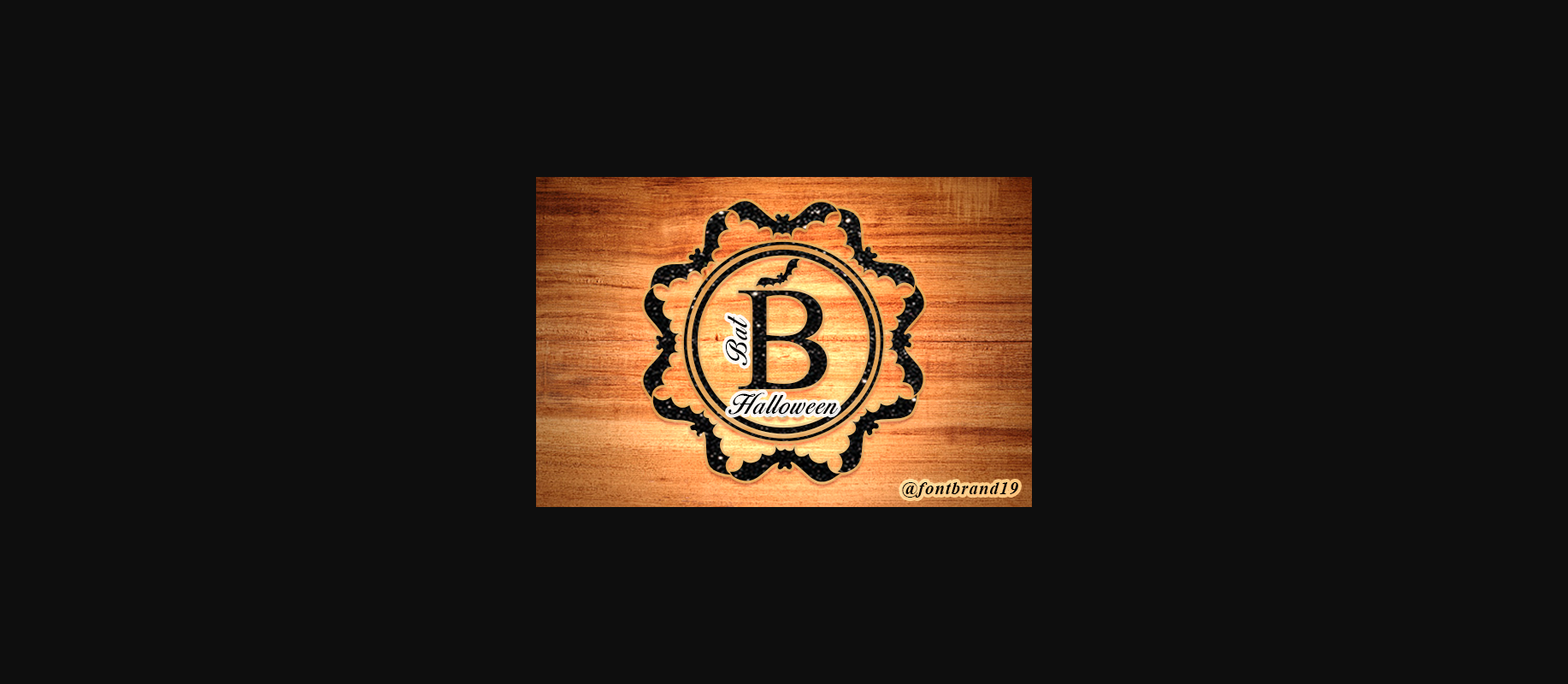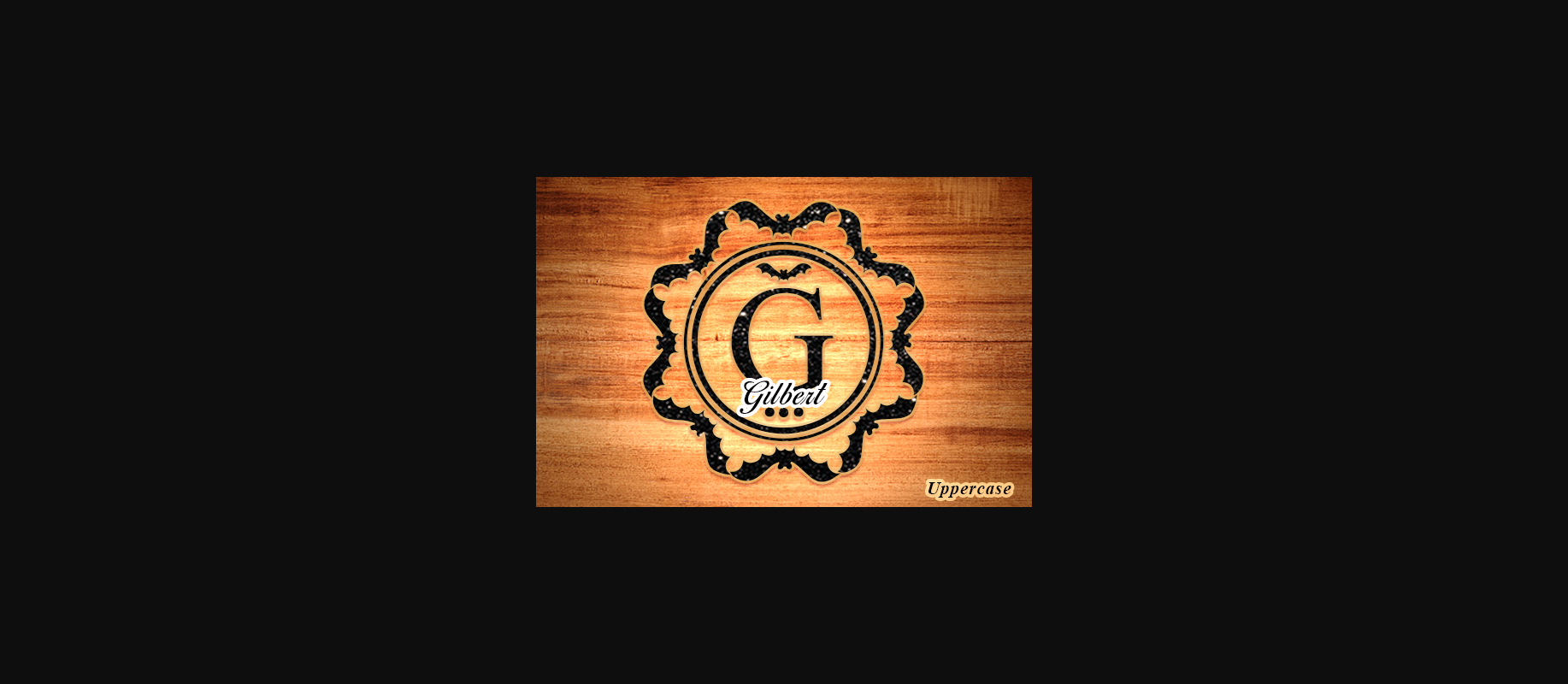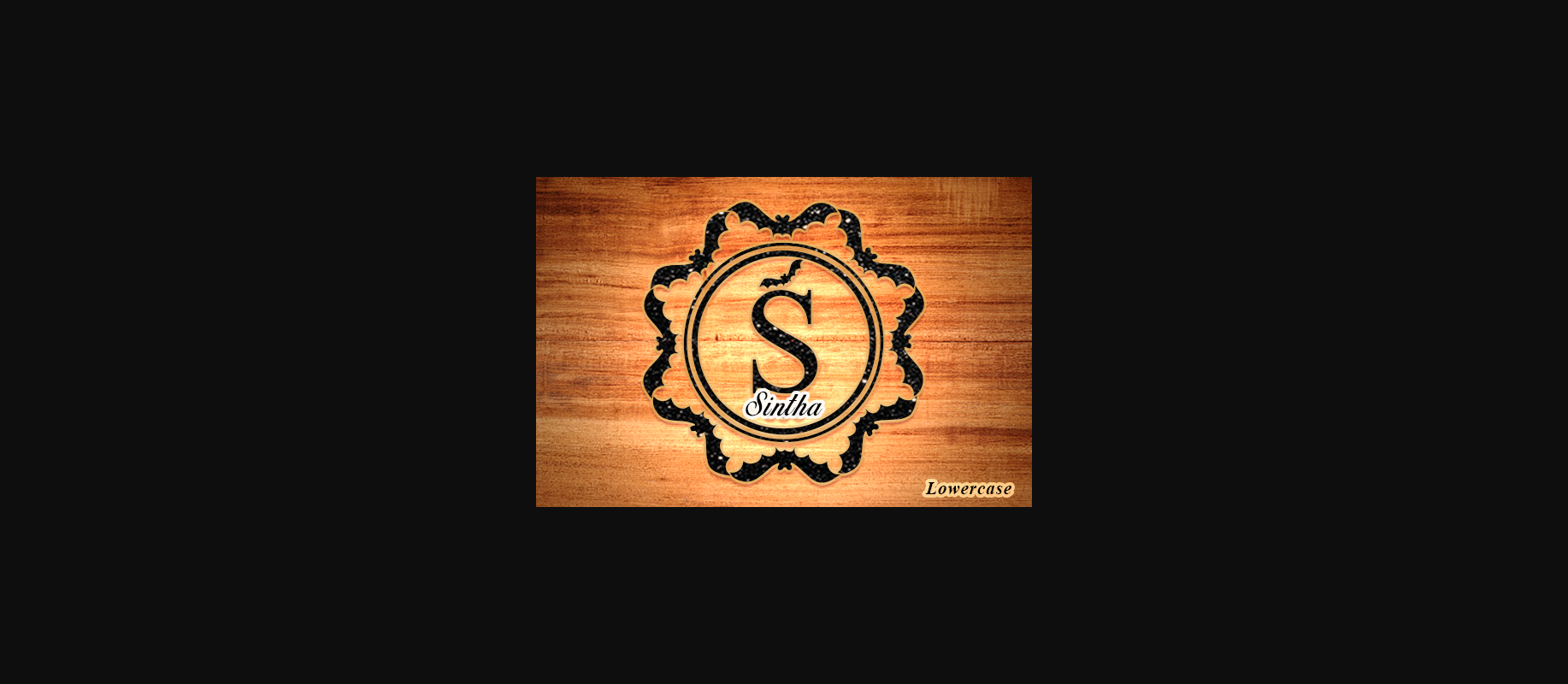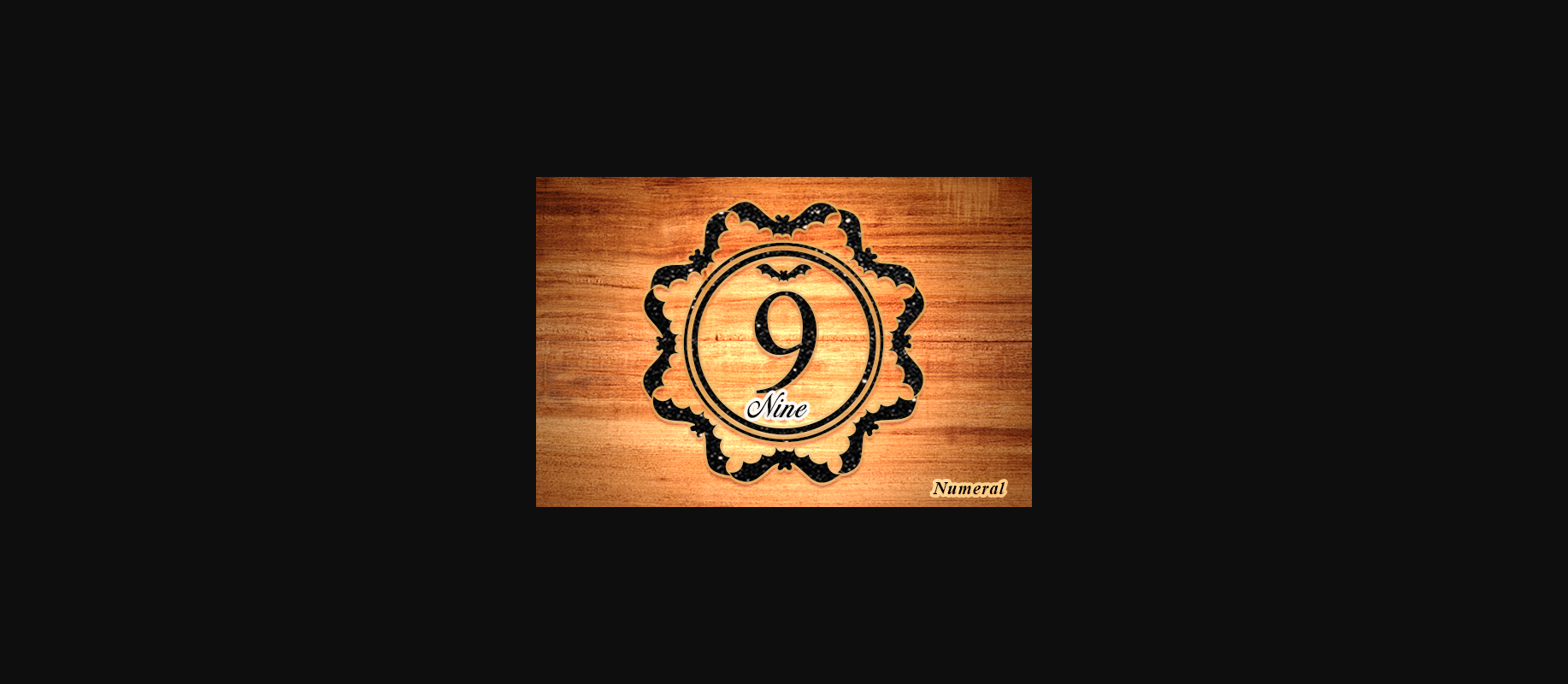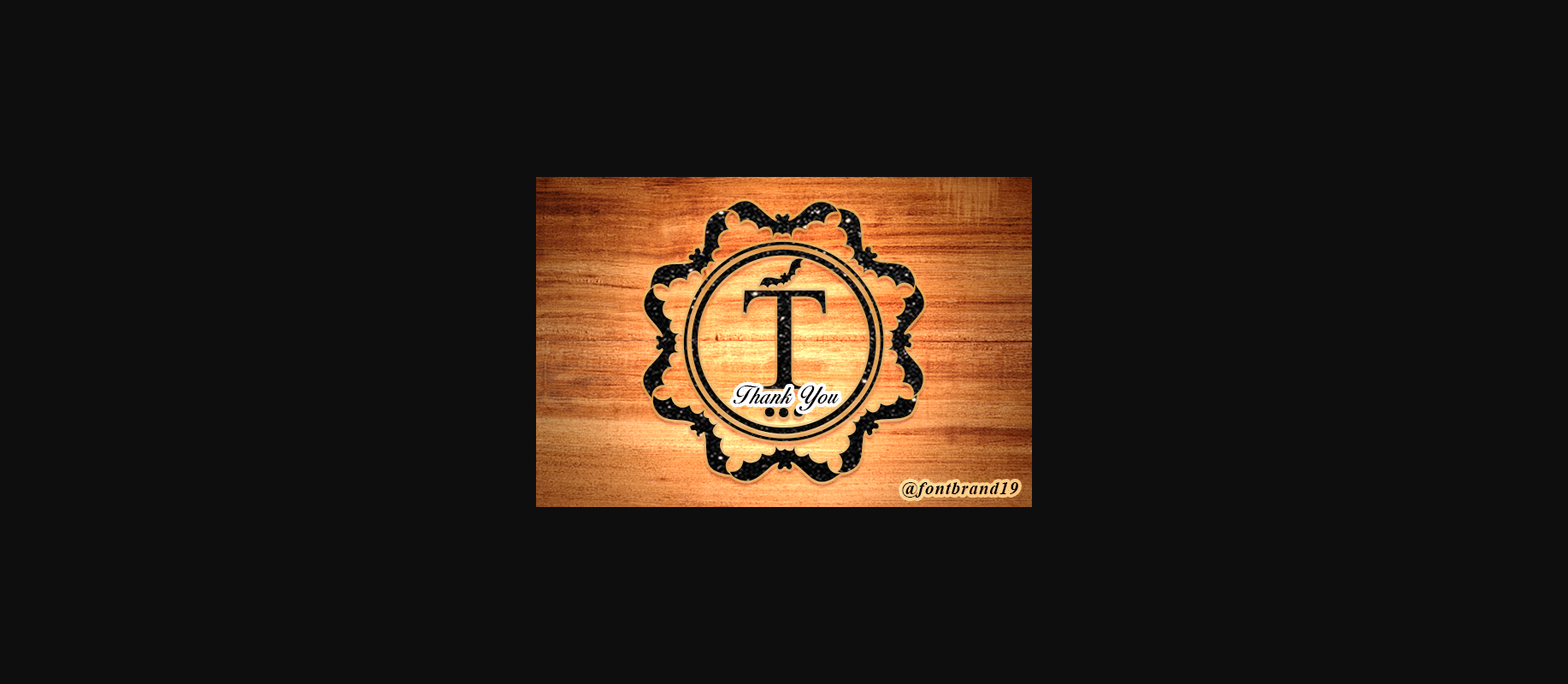
About Monogram Halloween Bat Font
Monogram Halloween Bat is an incredibly unique and spooky decorative font. Add it to your Halloween crafts, horror movie posters, t-shirts and anything else that requires a spectacular look.